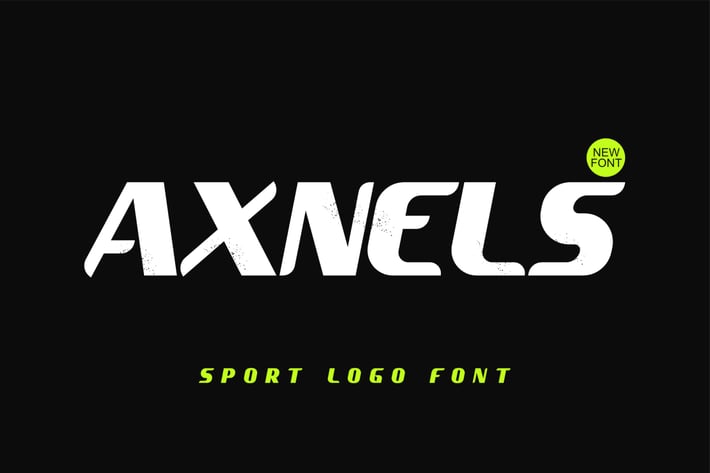
Axnels|Sport Logo Font
Axnels is a contemporary Sport Logo font designed specifically for logos, titles, and other typography needs that require a standout appearance, particularly in sports and action-related contexts. With its bold and energetic style,this font exudes strength and athleticism, making it ideal for to headlines in sports, technology, action, and fighting themes. This font is crafted with a bold action style and modern aesthetic, allowing you to create projects that effectively showcase your main ideas.
Ready with All Uppercase characters